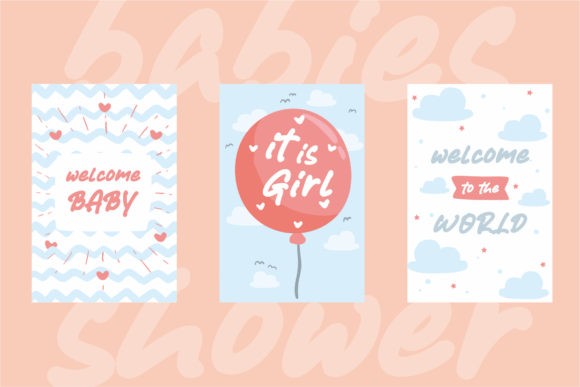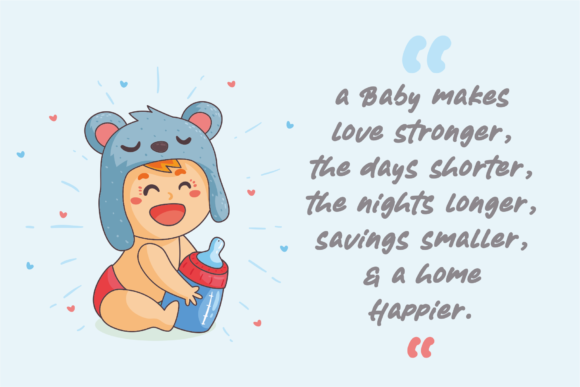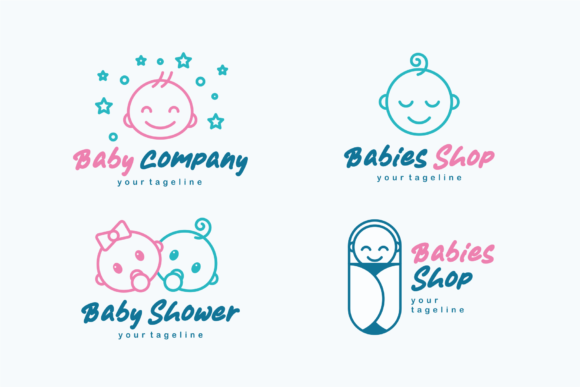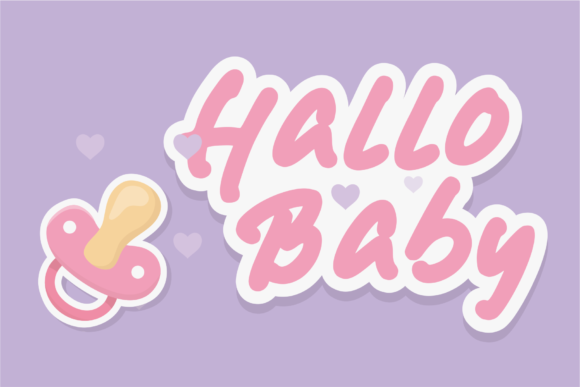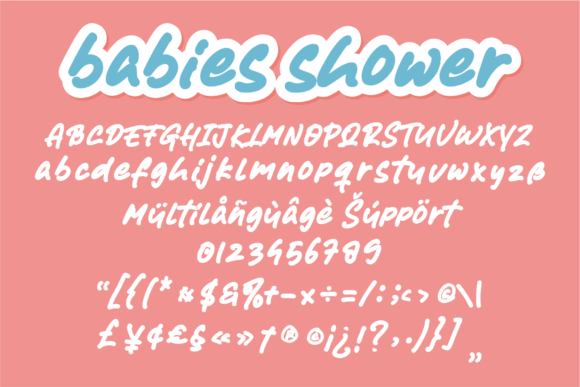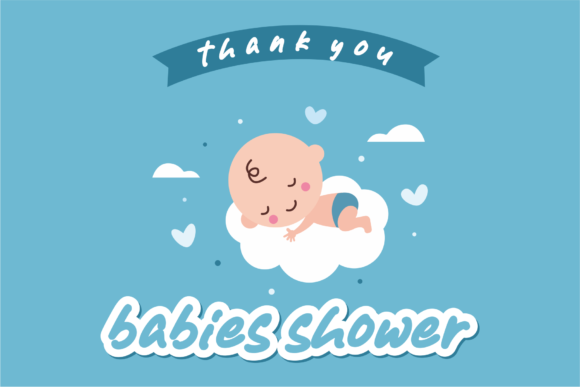
Babies Shower Font: The Ultimate Display Font for Fun and Quirky Designs
The Birth of Babies Shower Font
Babies Shower font is a carefully crafted display font that captures the essence of playfulness and joy. Its unique design is inspired by the excitement and anticipation of welcoming a new baby into the world. The font’s creator aimed to create a typeface that would convey the sense of fun and quirkiness associated with baby showers and celebrations.
Key Features of Babies Shower Font
- Unique and Quirky Design: Babies Shower font boasts a one-of-a-kind design that’s sure to grab attention. Its quirky and playful style makes it perfect for designs that require a touch of whimsy.
- Enchanting Display Font: This font is specifically designed to make a statement. Its enchanting display style is perfect for headings, titles, and other prominent text elements.
- Fun and Authentic: Babies Shower font embodies the spirit of fun and authenticity. It’s perfect for designs that require a playful and genuine touch.
- Highly Versatile: This font is suitable for a wide range of design projects, from baby shower invitations and decorations to branding and advertising materials.
Uses of Babies Shower Font
- Baby Shower Invitations: Create adorable and eye-catching invitations for baby showers, complete with a personalized touch.
- Decorations and Signage: Use Babies Shower font to create fun and playful decorations, such as banners, garlands, and signs.
- Branding and Packaging: Add a touch of whimsy to your brand’s packaging and marketing materials with this unique font.
- Digital Designs: Use Babies Shower font in digital designs, such as social media graphics, blog posts, and website headers.
Benefits of Using Babies Shower Font
- Stand Out from the Crowd: With Babies Shower font, you can create designs that are truly unique and attention-grabbing.
- Perfect for DIY Projects: Babies Shower font is ideal for DIY projects, such as crafting, scrapbooking, and party planning.
- Scalable and Versatile: This font is highly scalable and can be used in various design projects, from small icons to large billboards.
Tips for Using Babies Shower Font
- Use it Sparingly: Use Babies Shower font sparingly to create emphasis and visual interest.
- Pair it with Other Fonts: Experiment with pairing Babies Shower font with other fonts to create a unique and harmonious design.
- Adjust Font Size and Color: Adjust the font size and color to suit your design needs and ensure optimal readability.